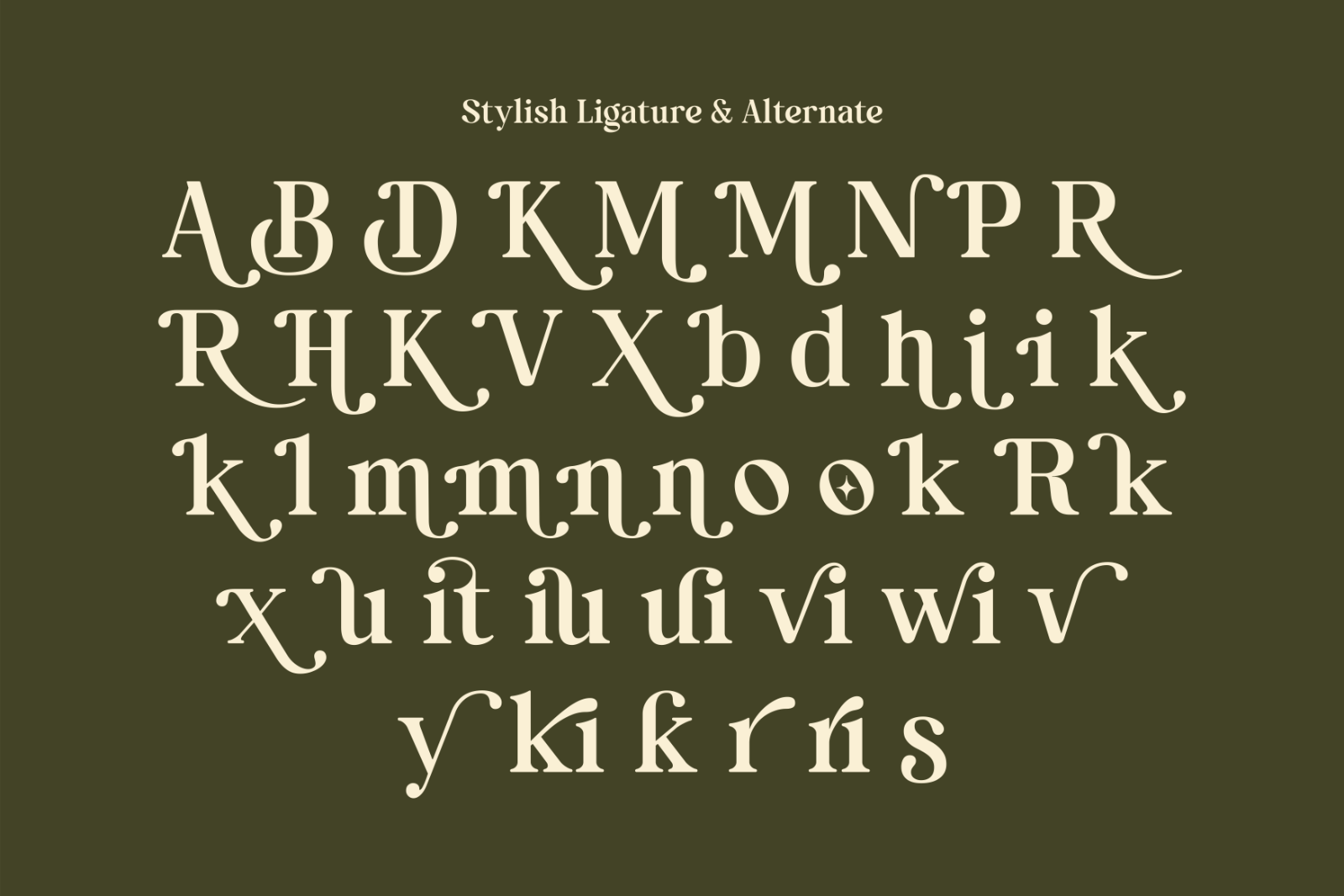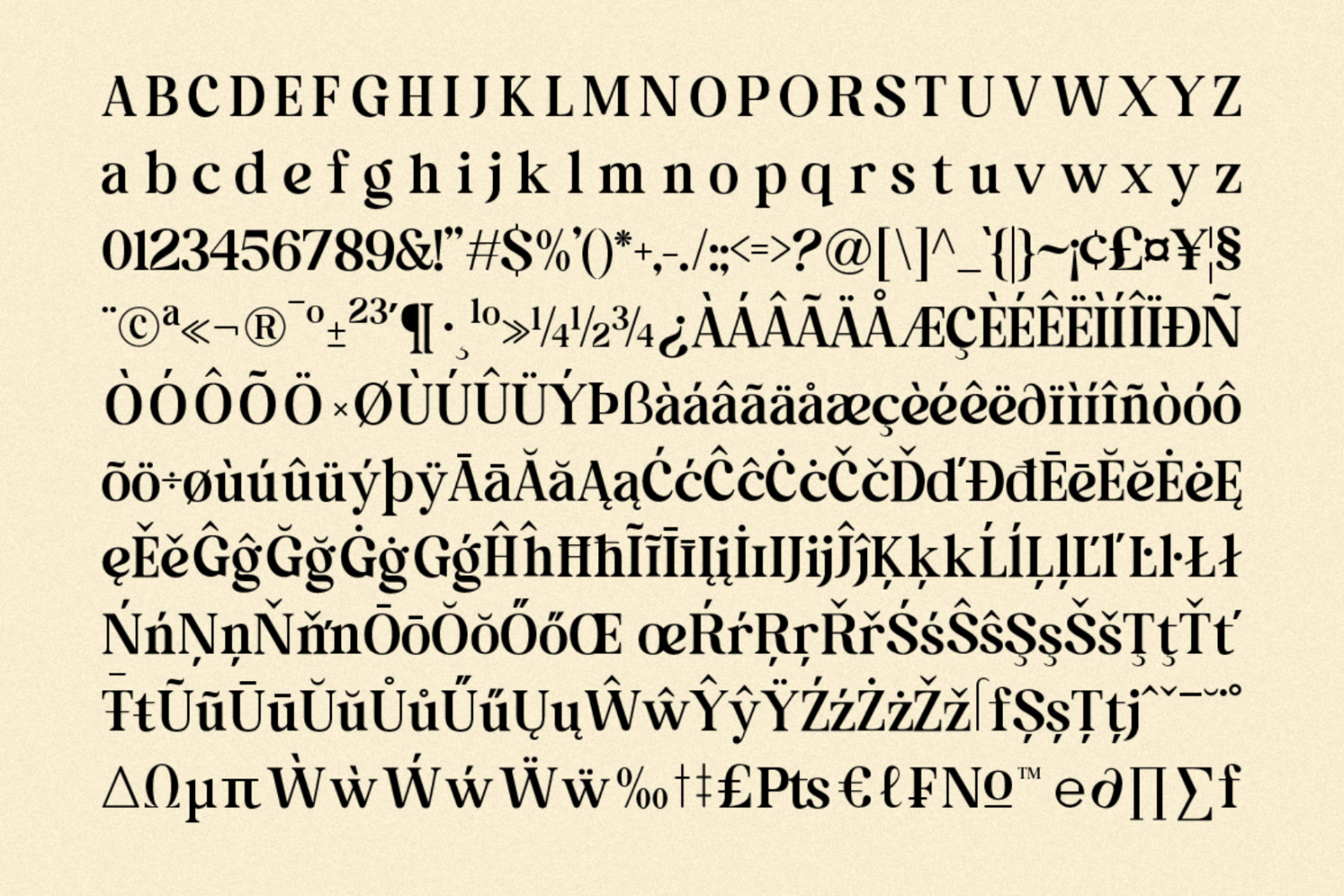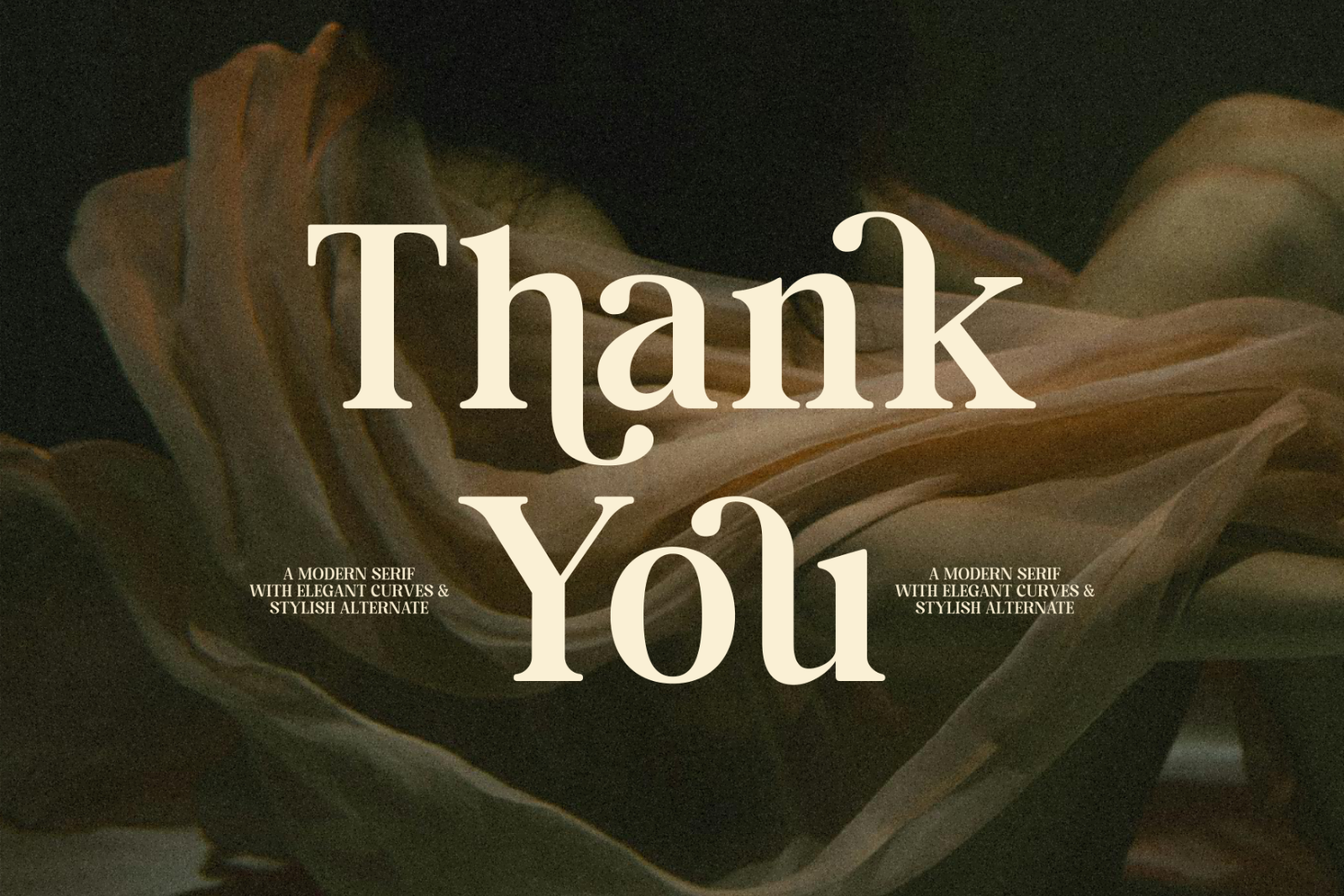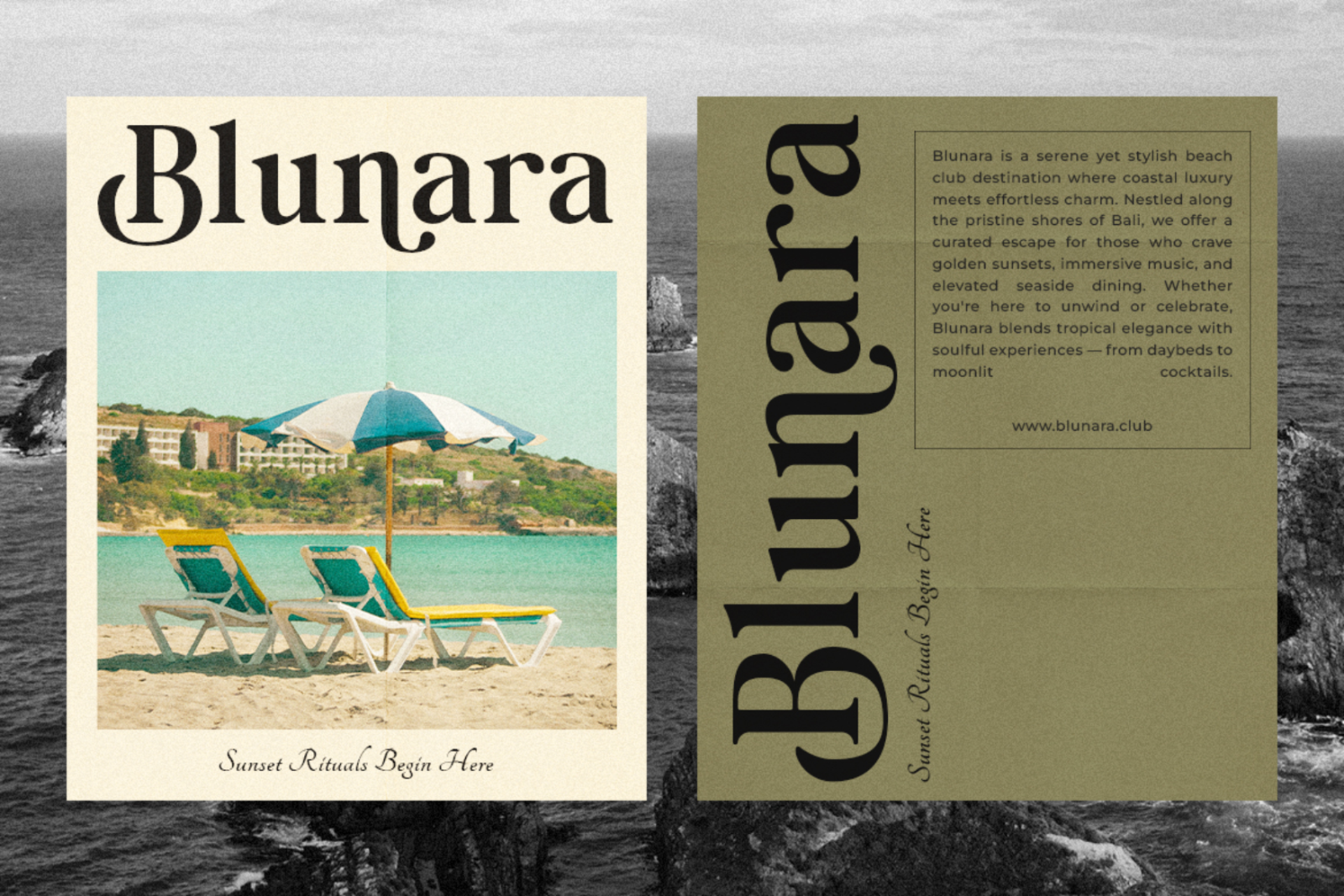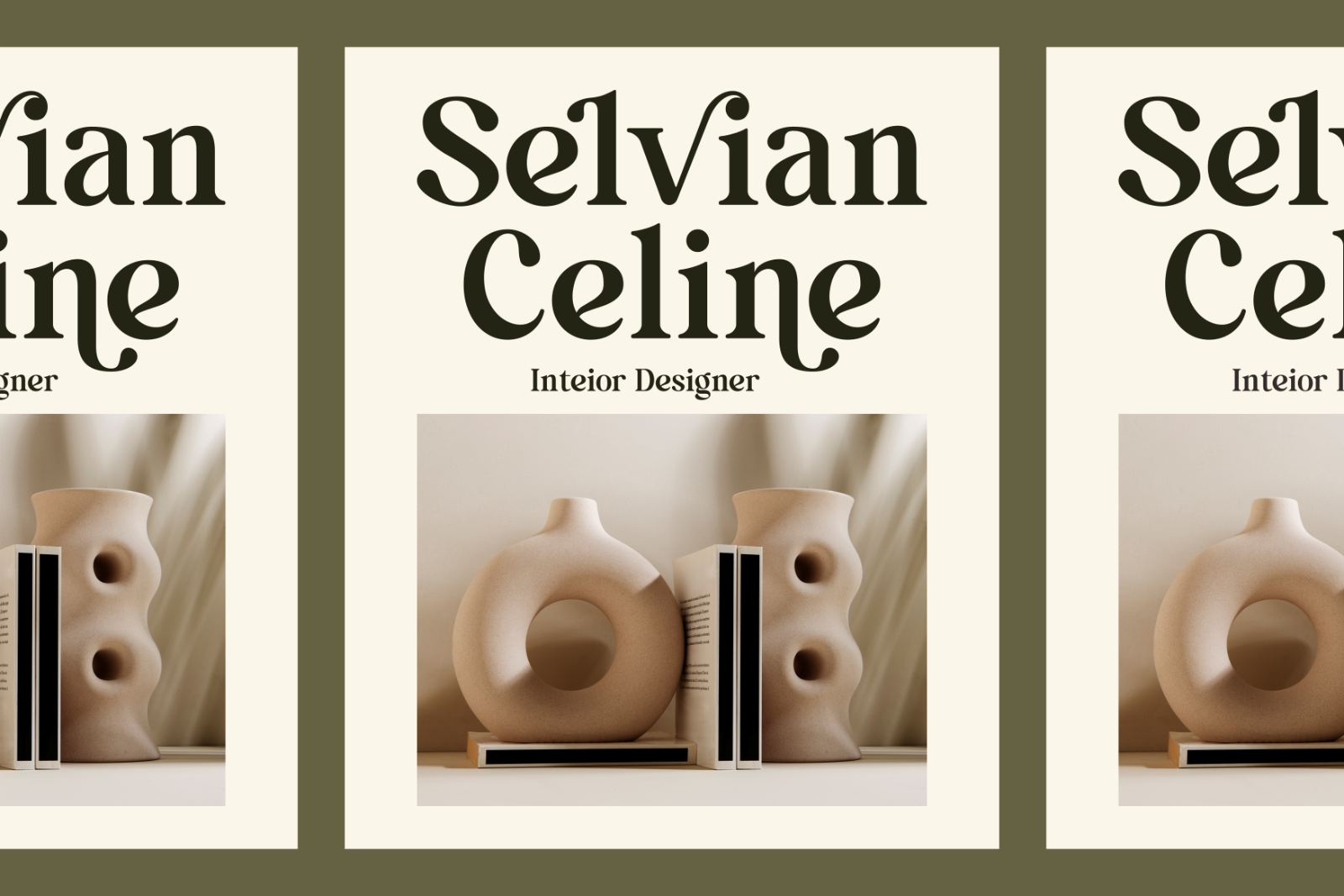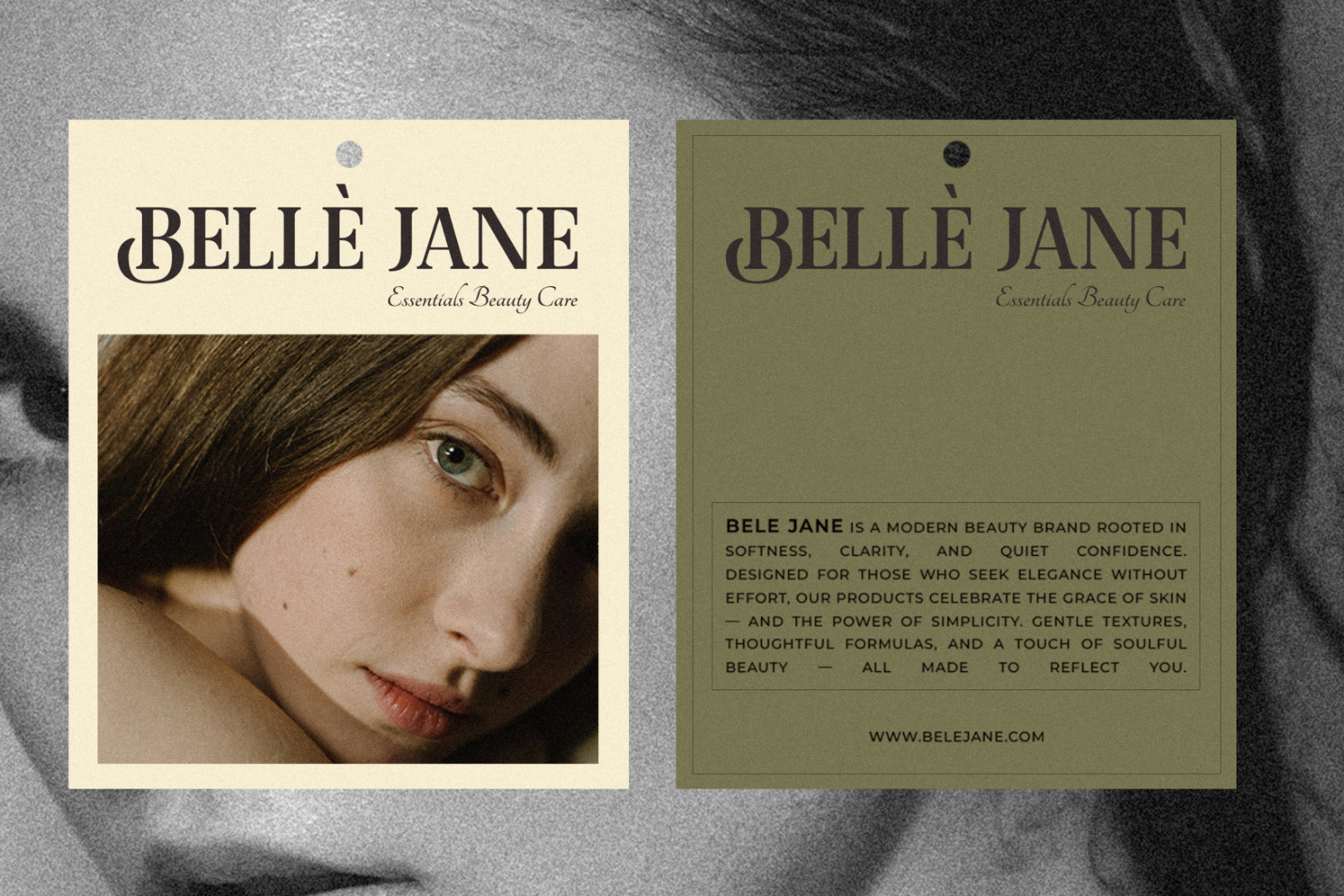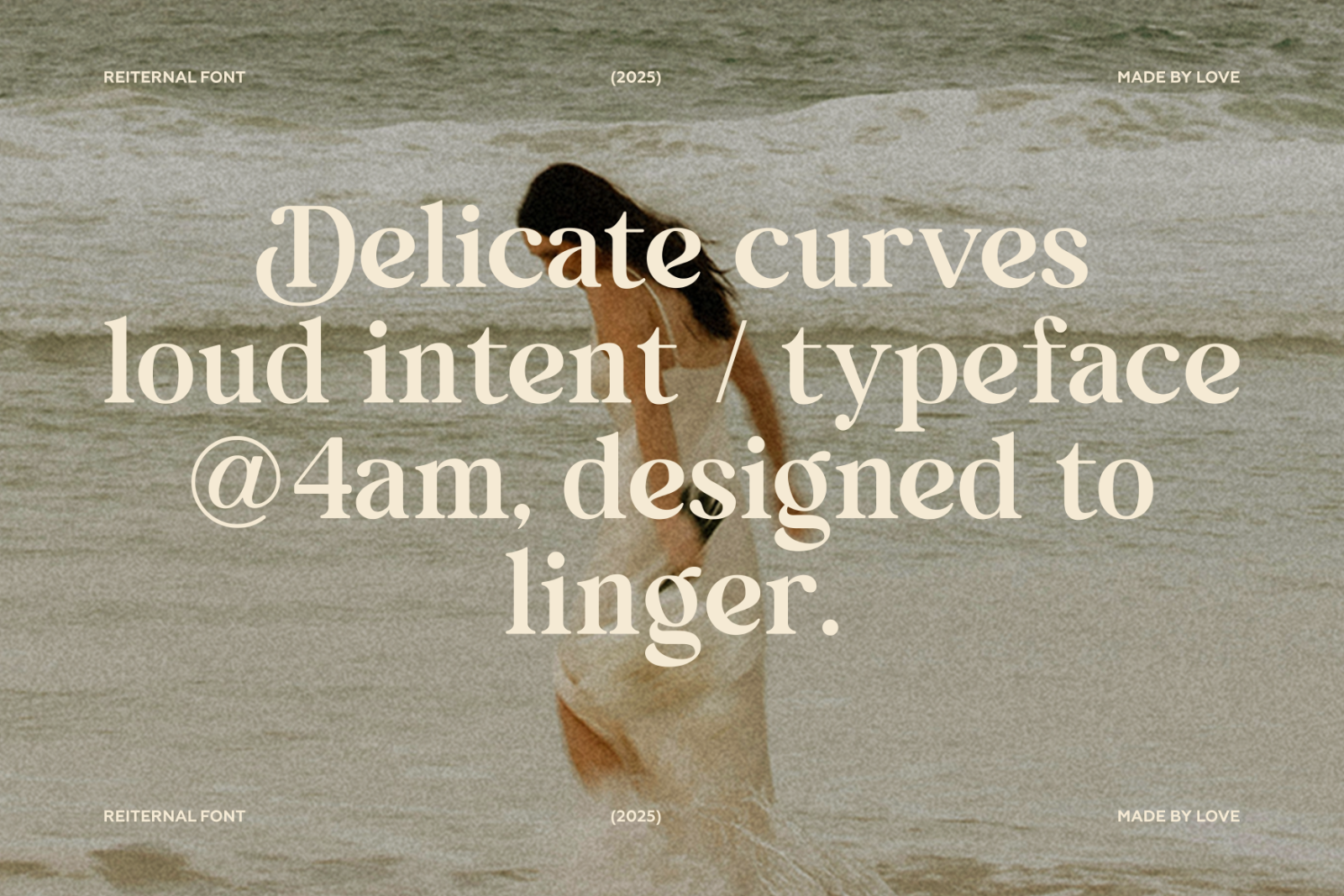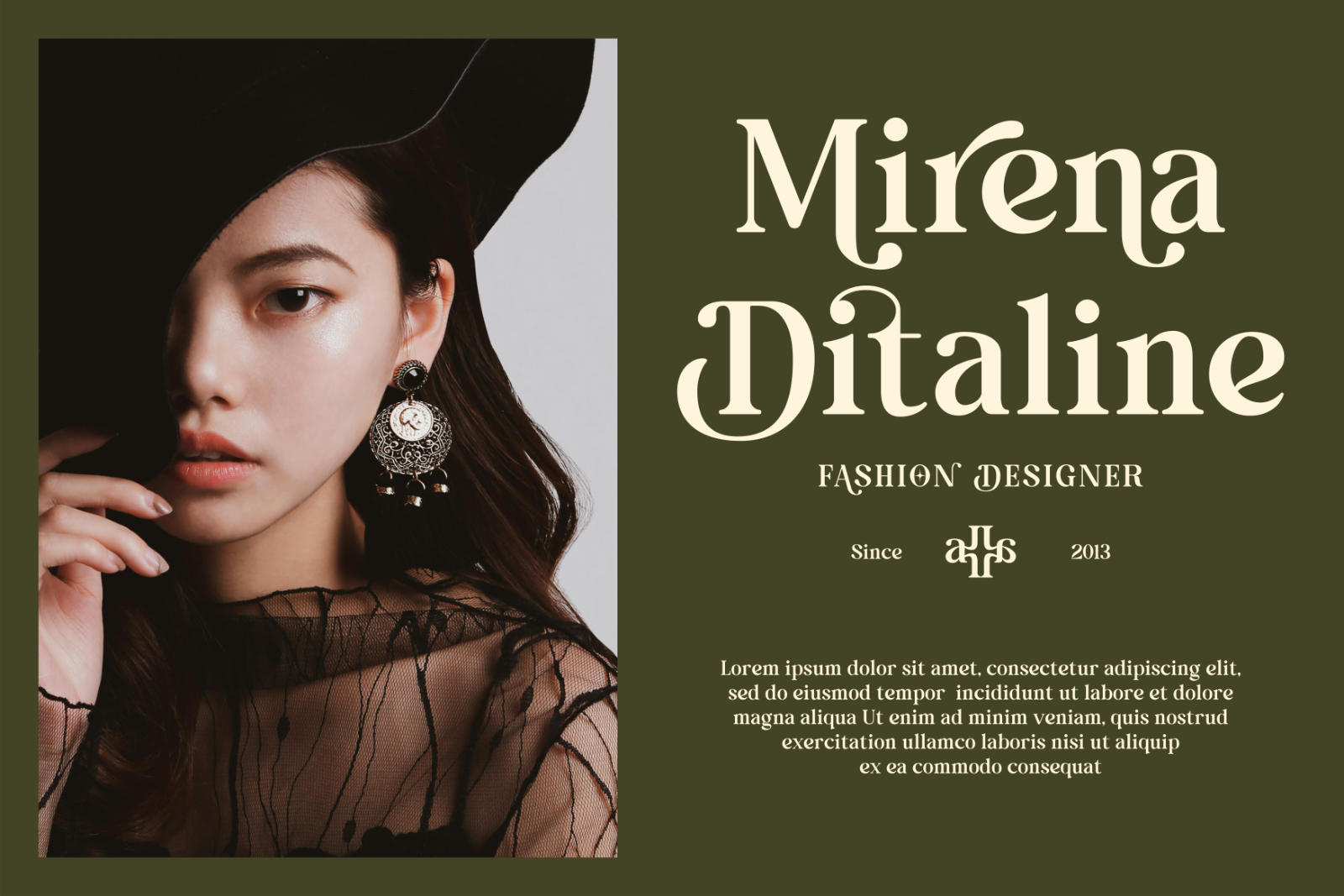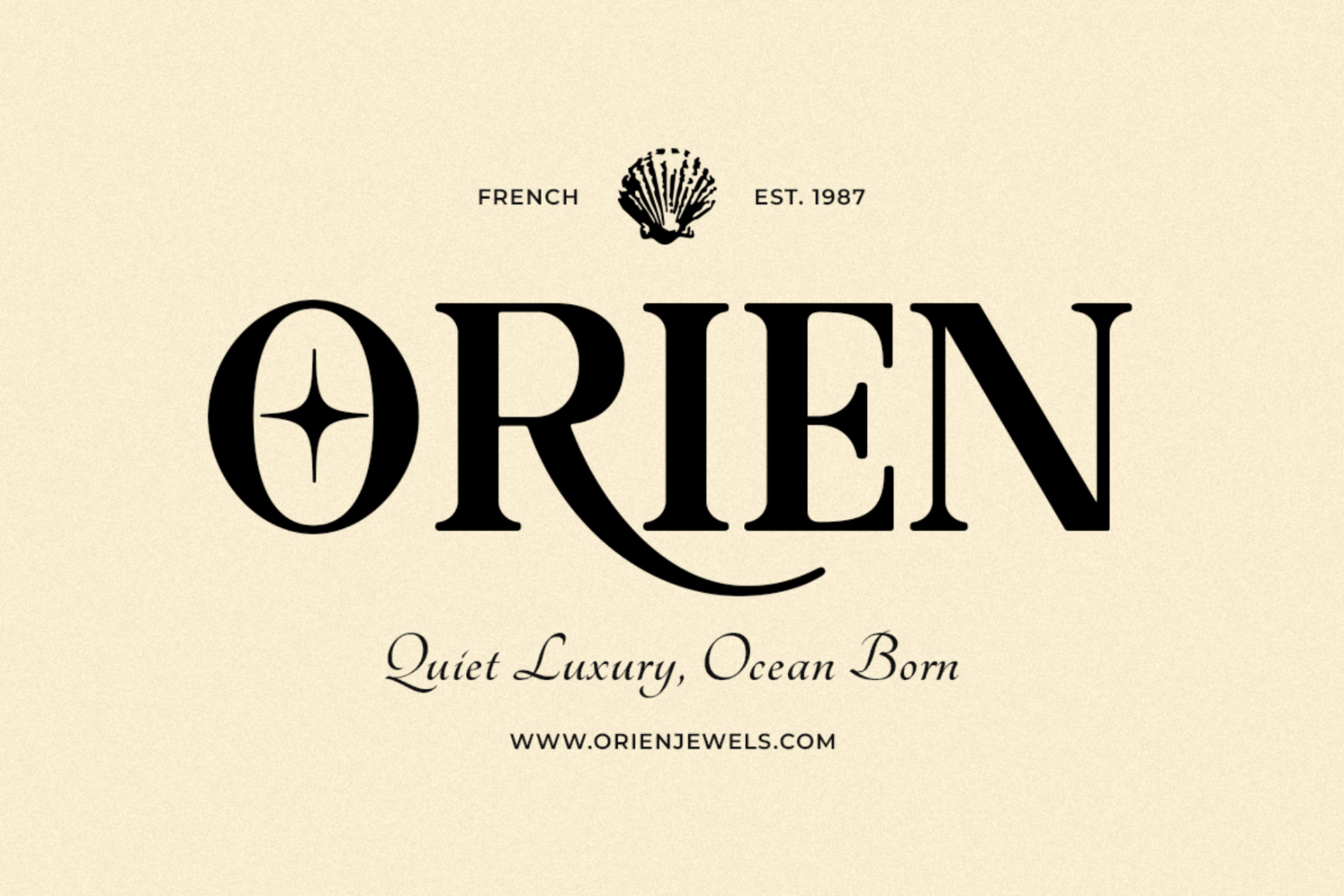
Introducing the cinematic elegance and luxury of Reiternal Font, sensationally created by Luminatype Studio. This articulate Sans serif font is the essence of finesse, impeccably designed to elevate your high-end projects. Let Reiternal infuse your designs with an unparalleled touch of sophistication and refinement.​​​​​​​
Reiternal Feature :
Alternates & Ligature Characters Ready
Punctuation, Number, and Symbol
Uppercase and Lowercase
Opentype Features